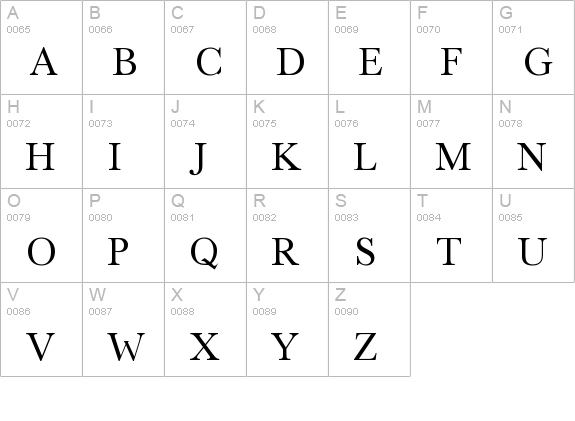
Houndtime Font Details
Houndtime font is a modern and stylish typeface that exudes elegance and sophistication. Its sleek lines and sharp edges give any design a contemporary and professional look. The versatility of Houndtime font makes it perfect for a wide range of projects, from logos to branding, editorial design to web design. What makes Houndtime font even more appealing is that it is available for free to download at FontsMarket.com. This means that you can elevate your designs without breaking the bank. Don't miss out on this opportunity to add a touch of class to your projects with the Houndtime font. Download it now and let your creativity shine!